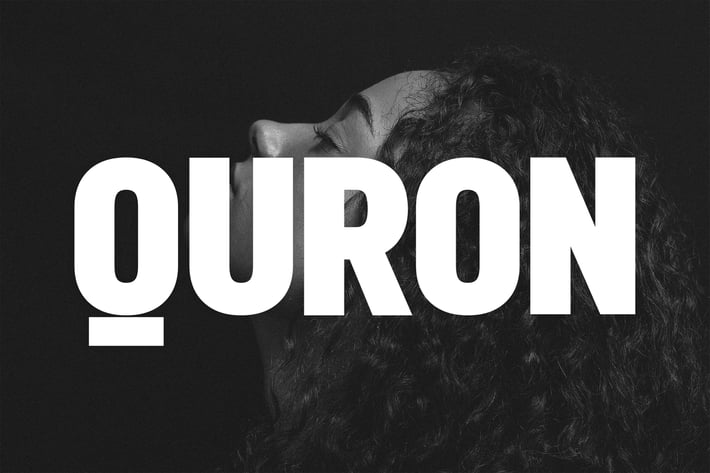
Quron Display typefaces + webfonts
Quron Font Family
Quron is a beautiful modern display font family. Quron carries a powerful, unique, bold, artistic, and social character line with a premium finish, giving a new impression.
Quron is perfectly crafted for logos, magazines, advertisements, websites, headlines, titles, captions, UIs, games, apps, films, apparel and more.
02 Font Variants
Regular & Outline
uppercase letters
numbers
punctuation